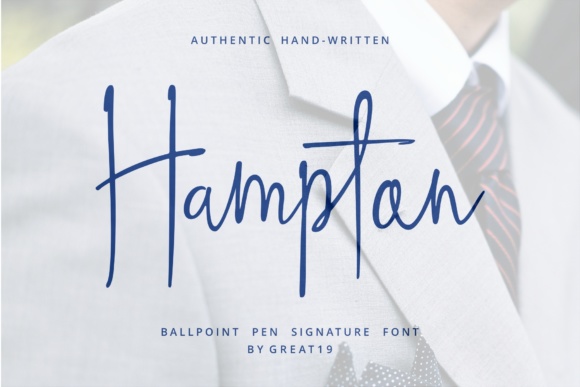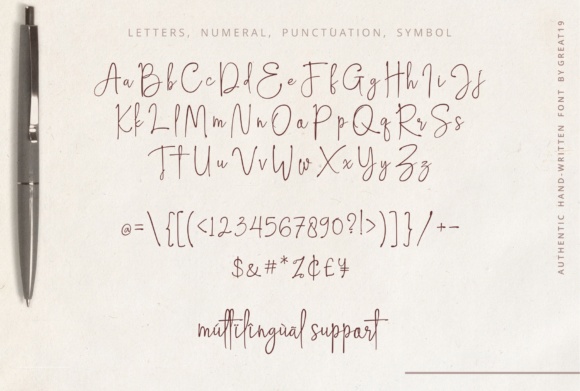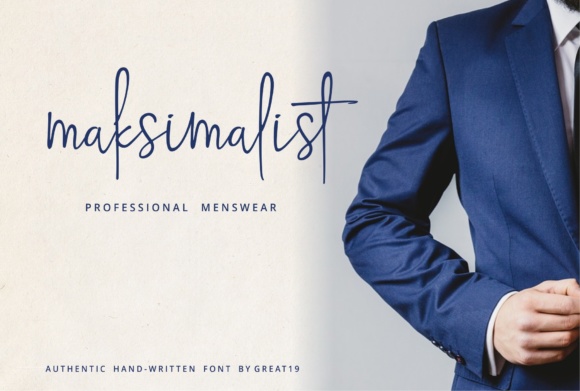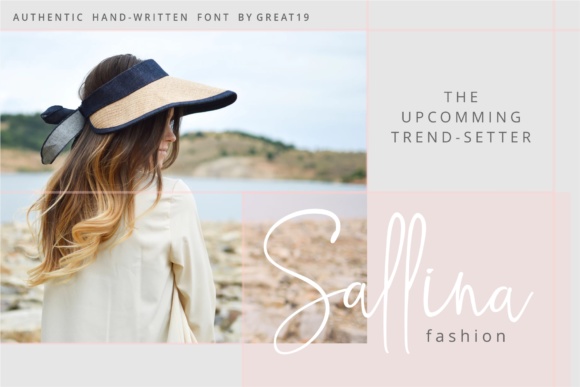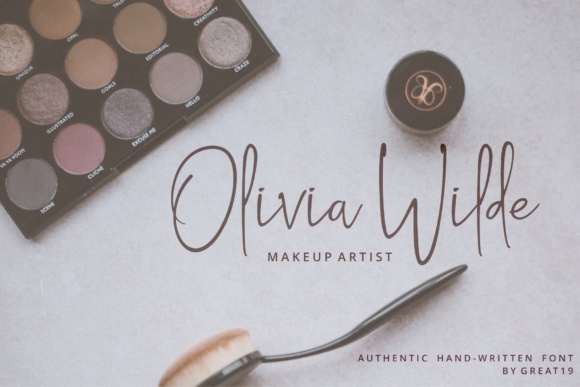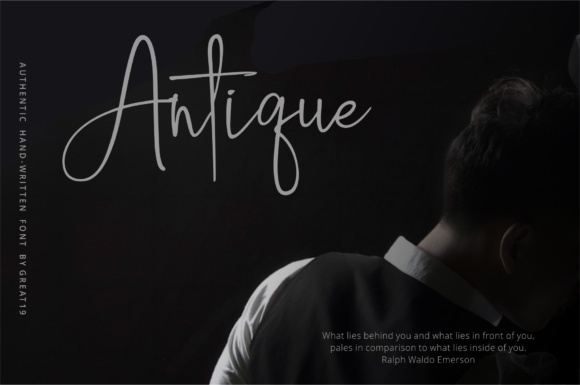
About Hampton Font
Hampton is a hand-written signature font which was made using a 1.0 mm ballpoint pen to get an authentic look. Sophisticated, authentic, unique, high-end, and fancy are the perfect words to describe Hampton.
Hampton is perfect for logotypes, branding, magazines, watermarks, titles, business cards and every design that needs an unique signature feel.